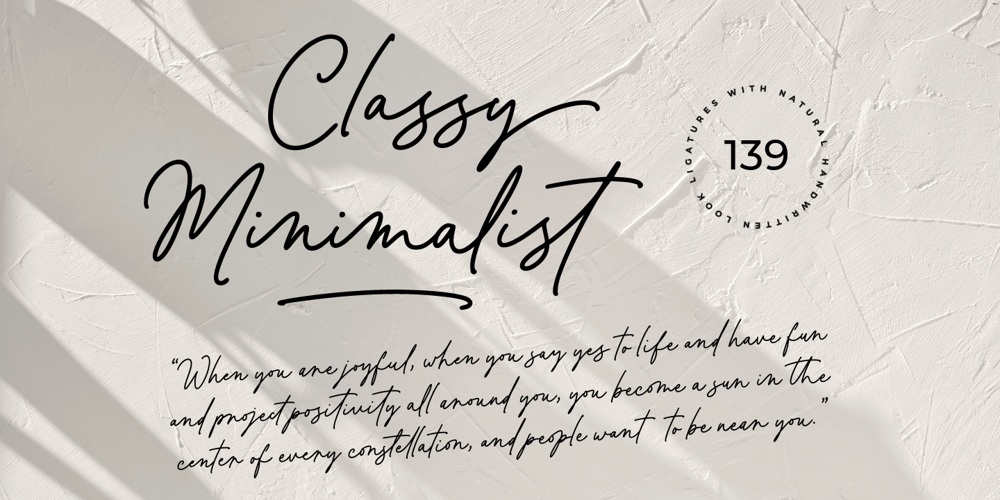
Classy Minimalist Font Family was designed by Ainun Jinan and published by Jinan Studio. Classy Minimalist contains 1 styles and family package options. Classy Minimalist is a stunning handwritten typeface that features 139 ligatures for a natural and sophisticated handwritten look. Its beauty is perfect for weddings design, valentines, invitations, branding, quotes, and more. Plus, it supports multiple languages, making it perfect for a variety of design needs. With its elegant strokes and versatility, this font adds beauty to any project, making it a must-have for content creators.Features A set of uppercase and lowercase glyphs Number, symbol, and punctuation Multilingual Support Alternates, ligatures, and swashes PUA encoded